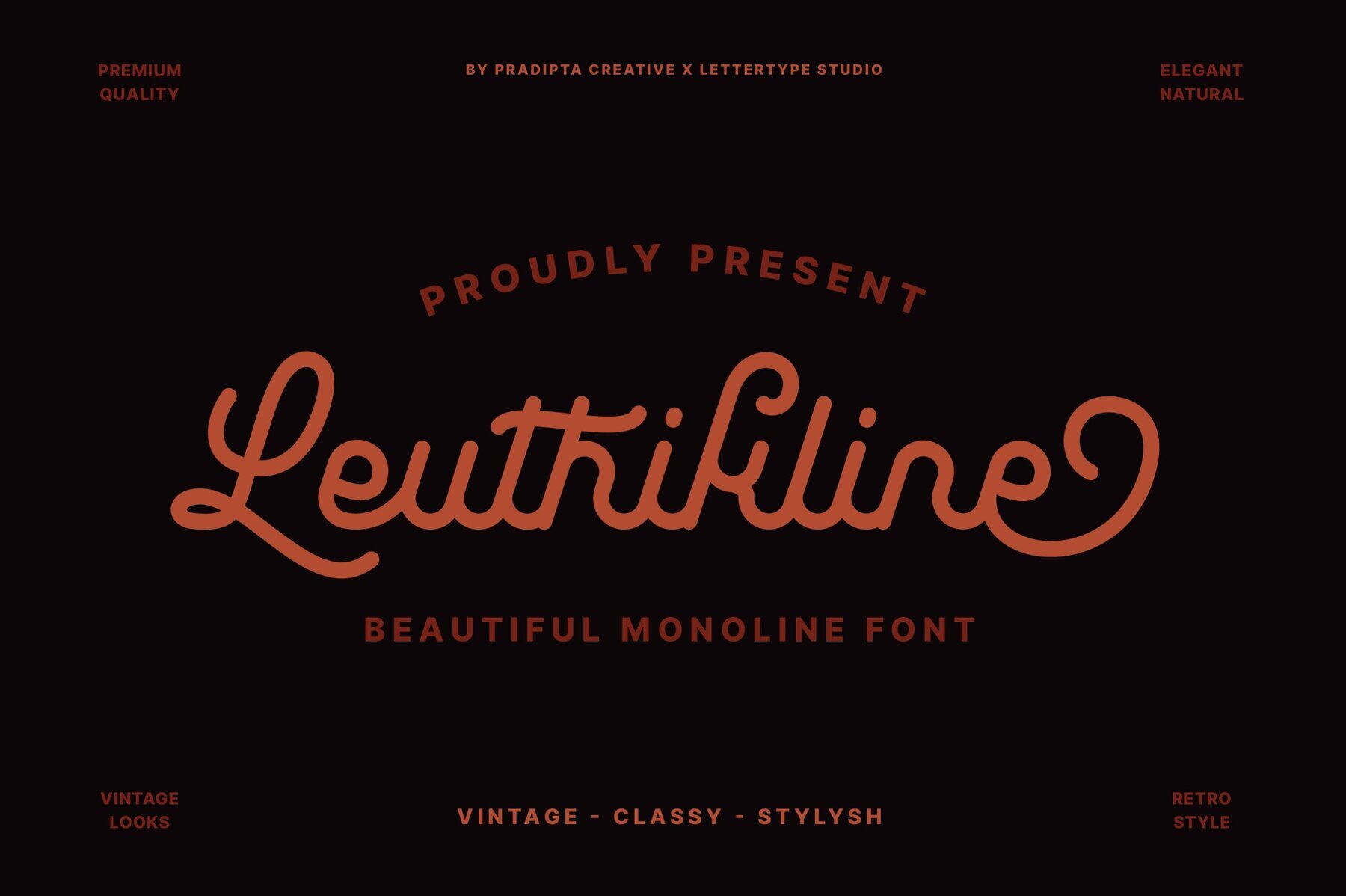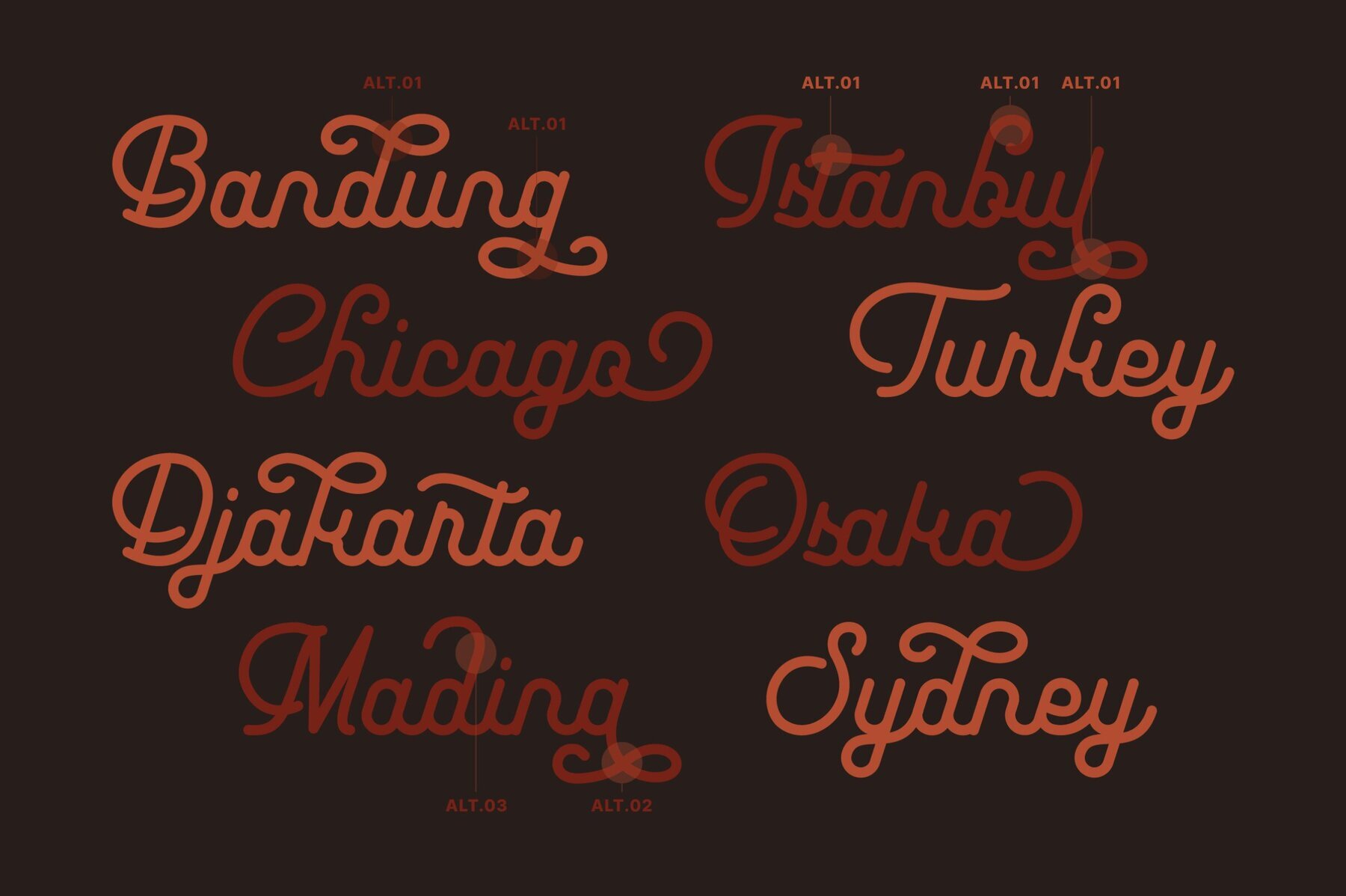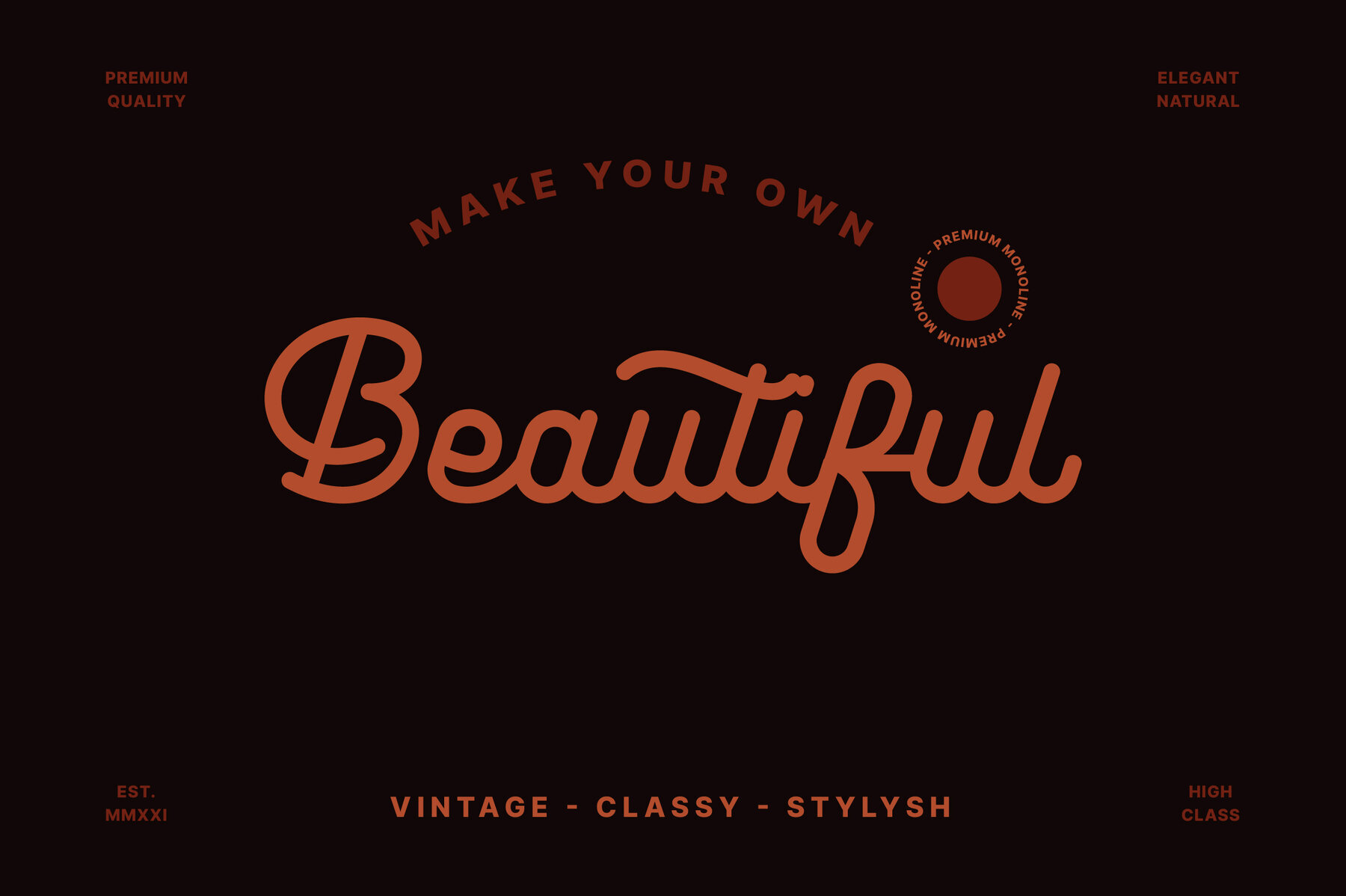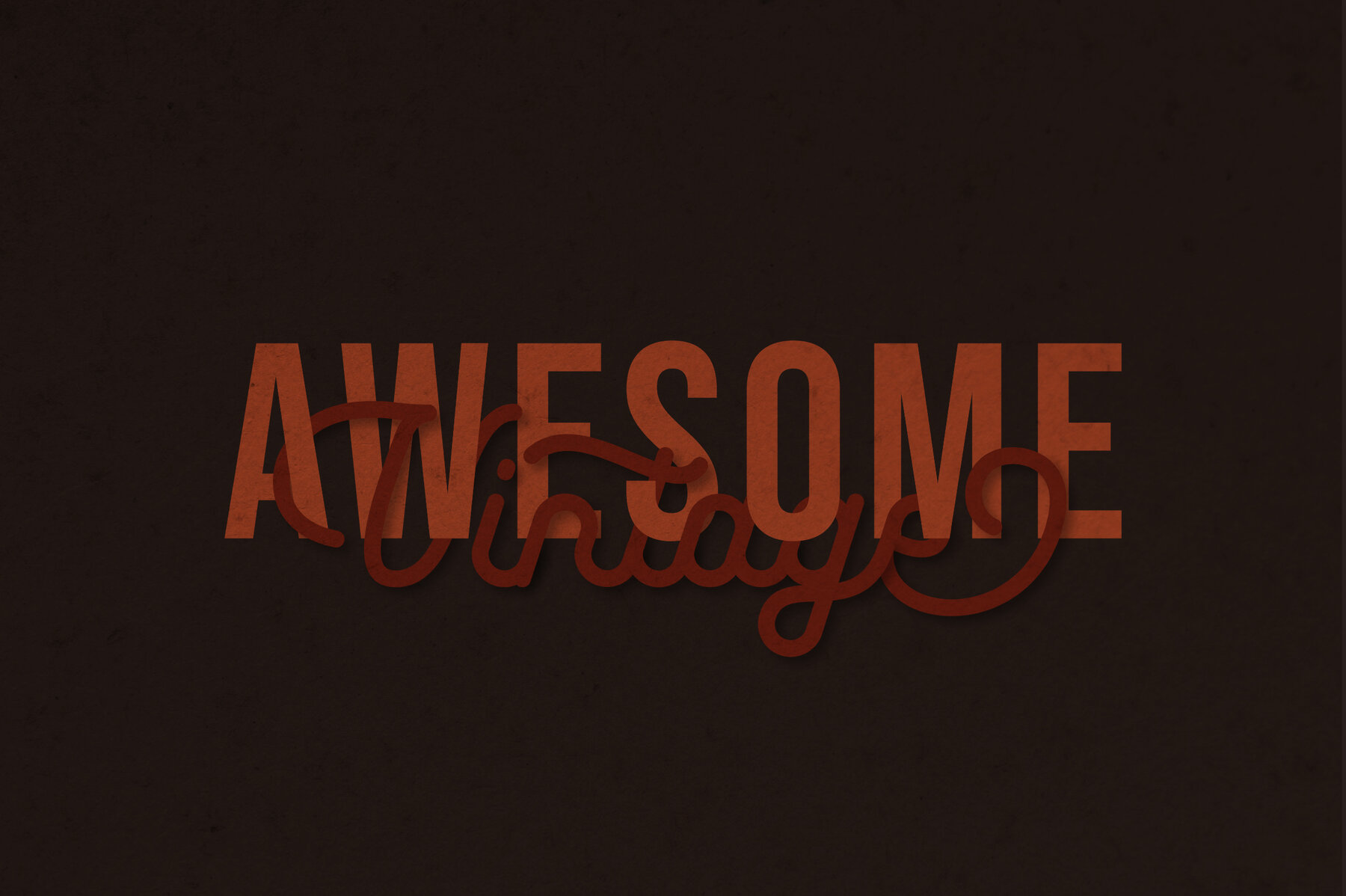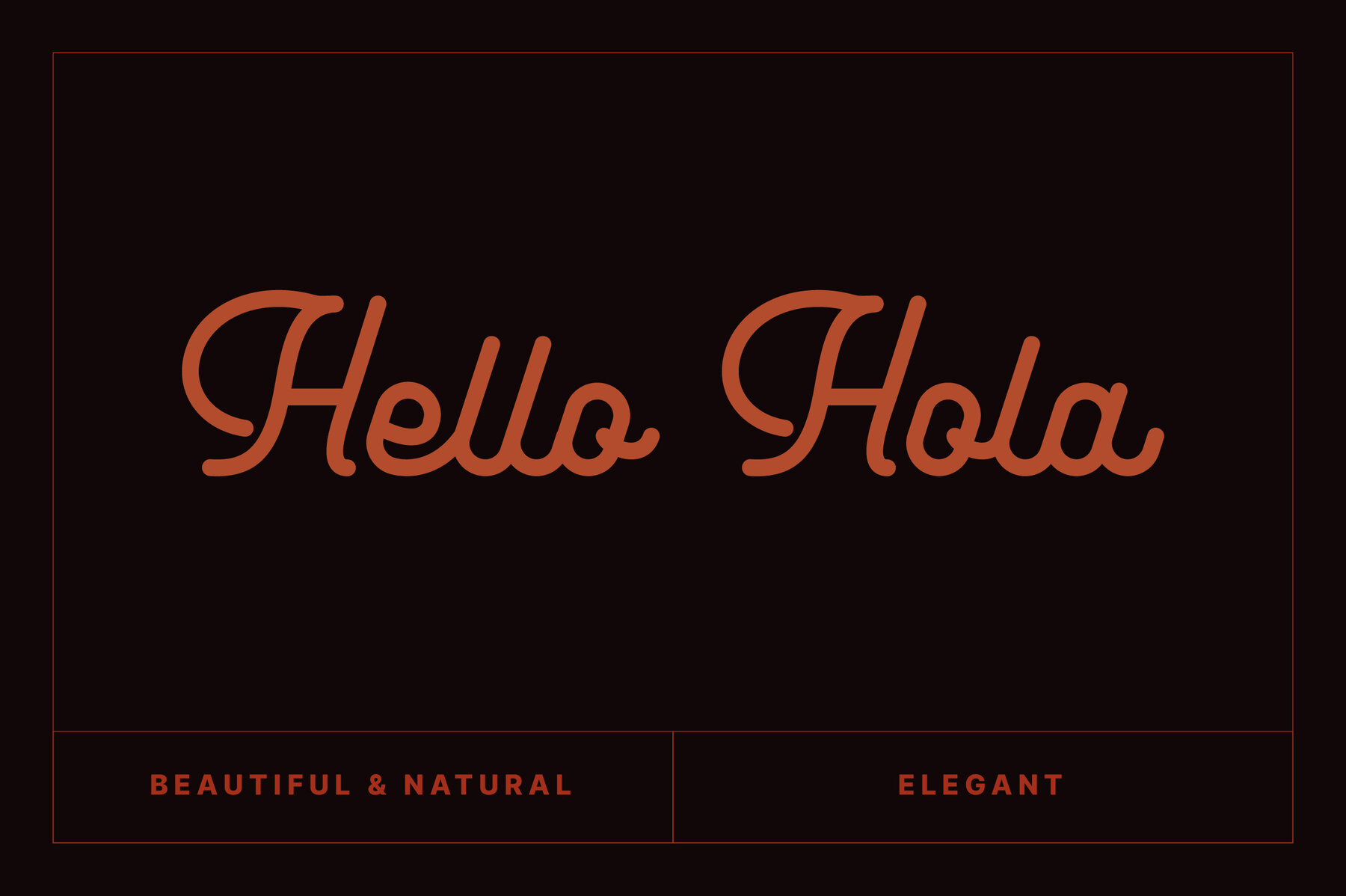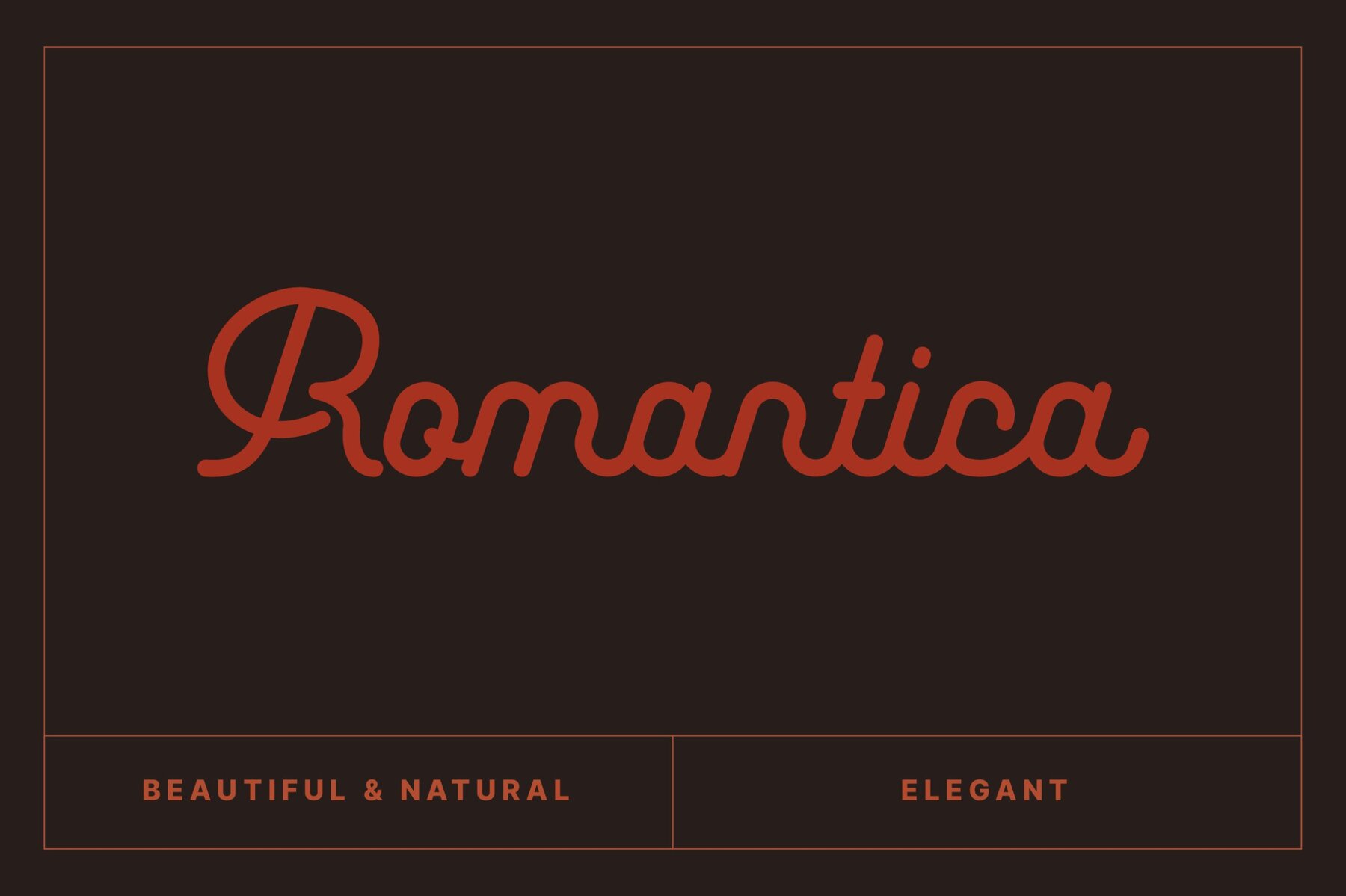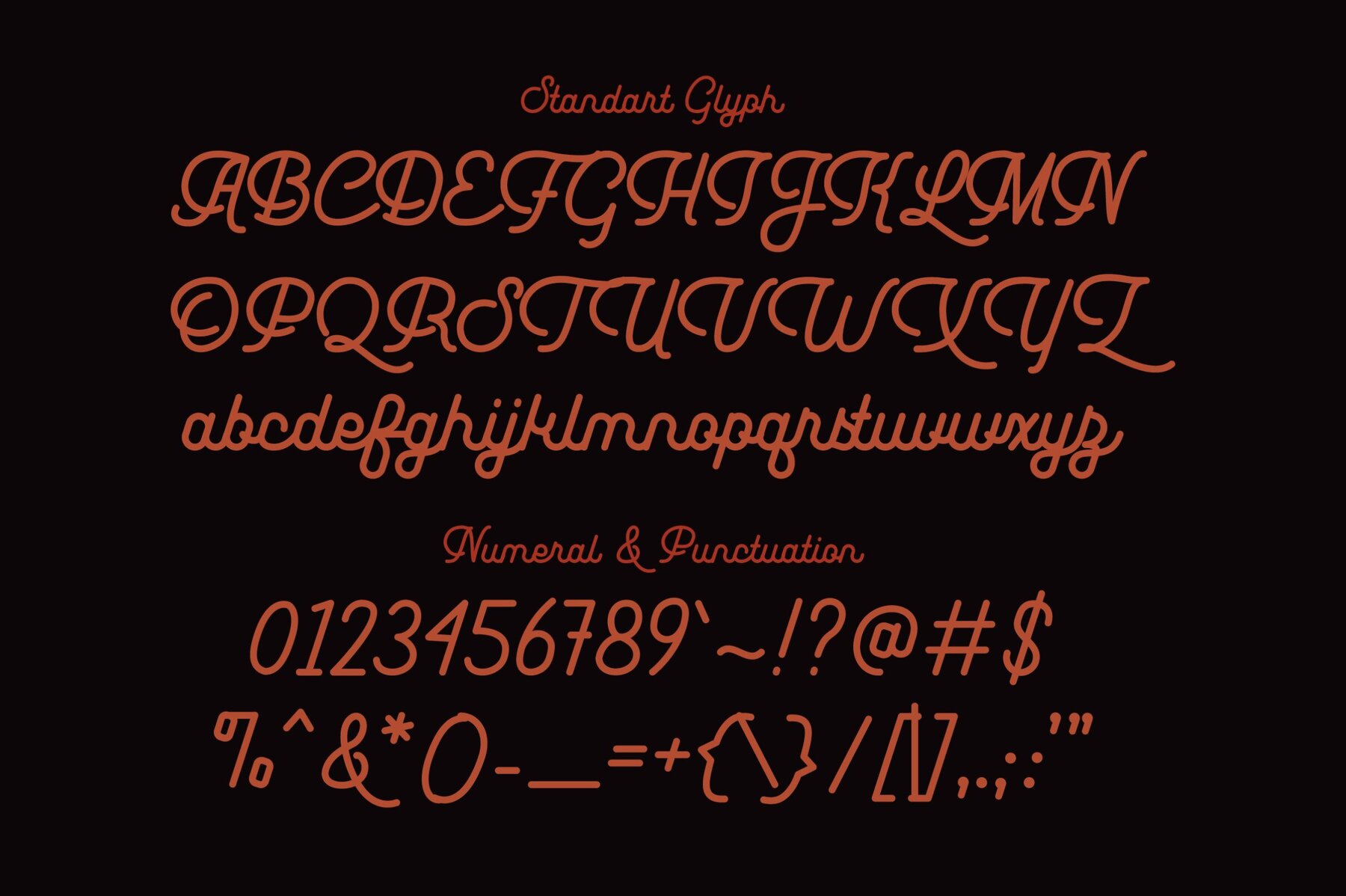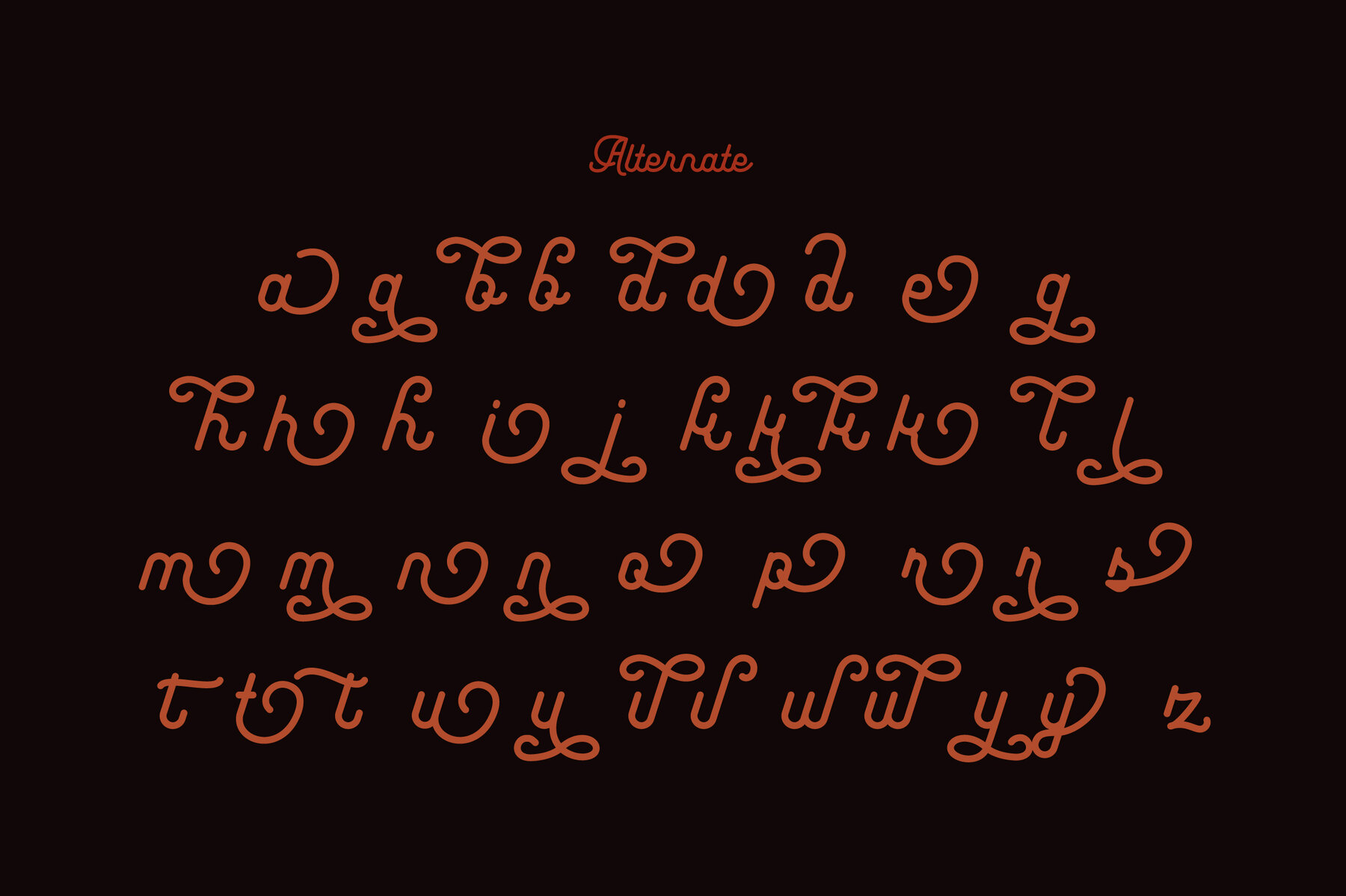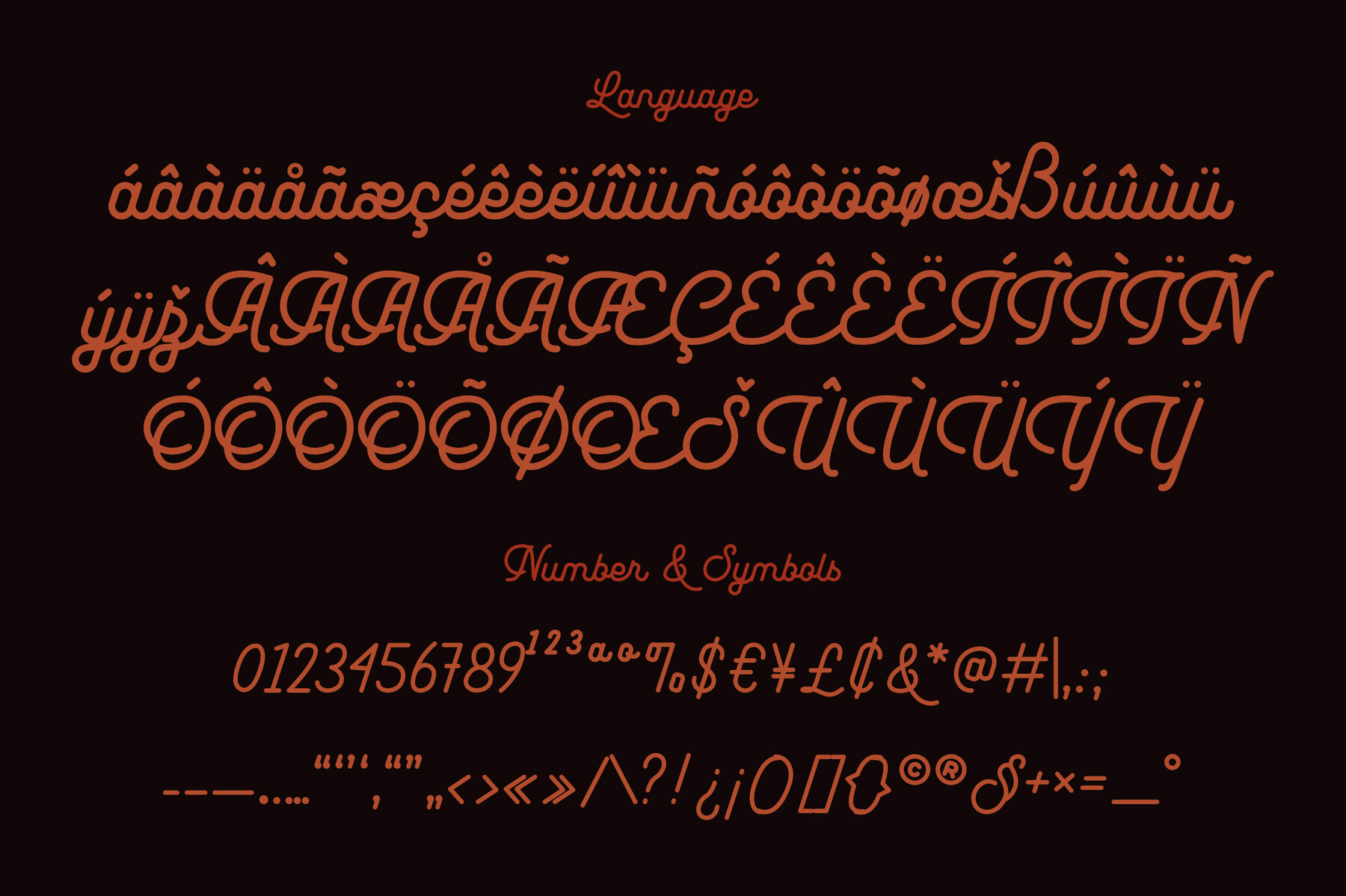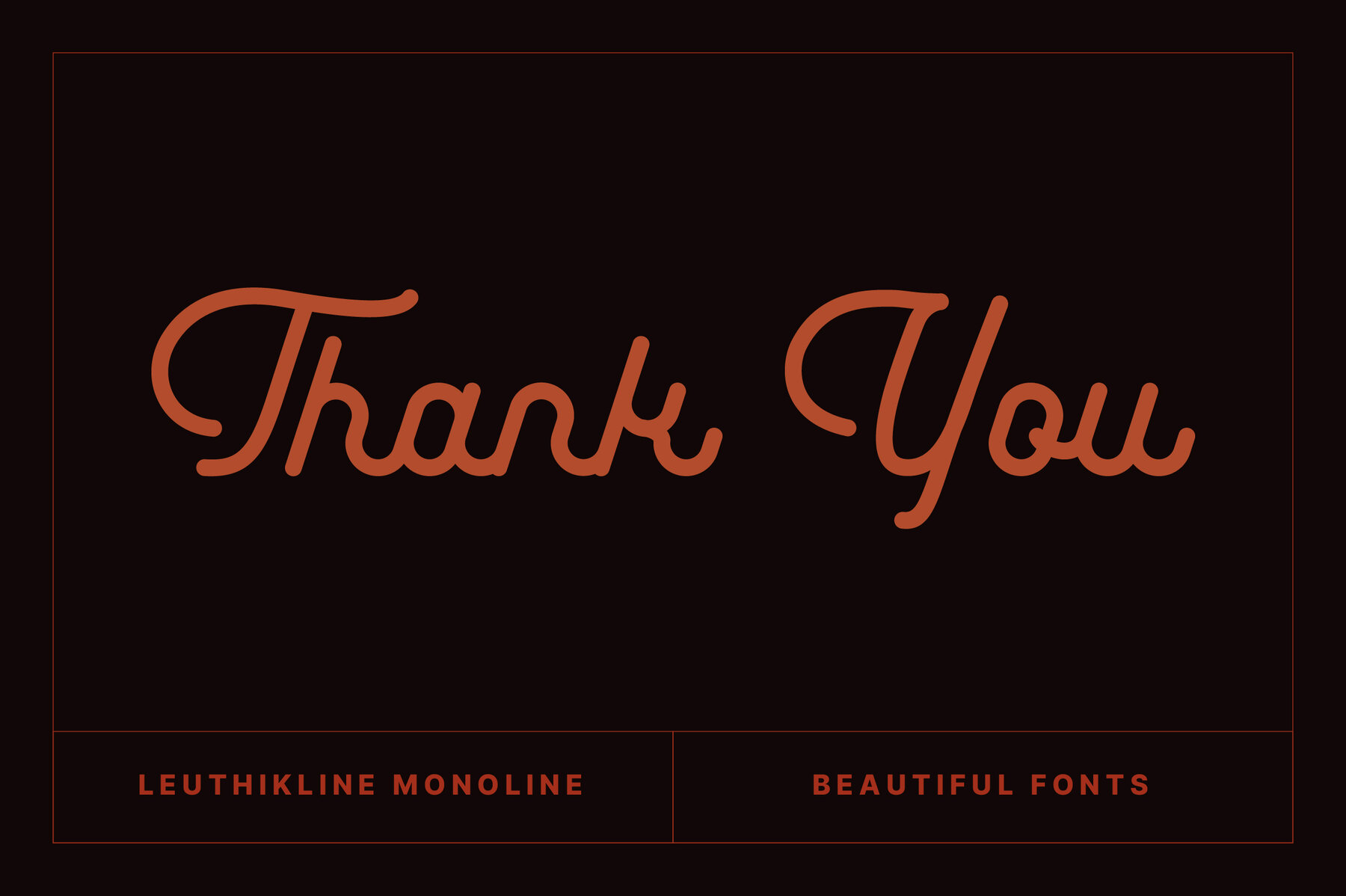
Leuthikline Font
Leuthikline
Leuthikline Script captures the essence of elegance with its beautiful monoline craft. This font is ideal for a myriad of design applications, including logo creation, branding, clothing design, signage, posters, and wedding invitations. Its easy-to-read nature offers both aesthetic appeal and practical functionality, making it an excellent choice for enhancing any creative project.Leuthikline Script: The Versatile Monoline Font